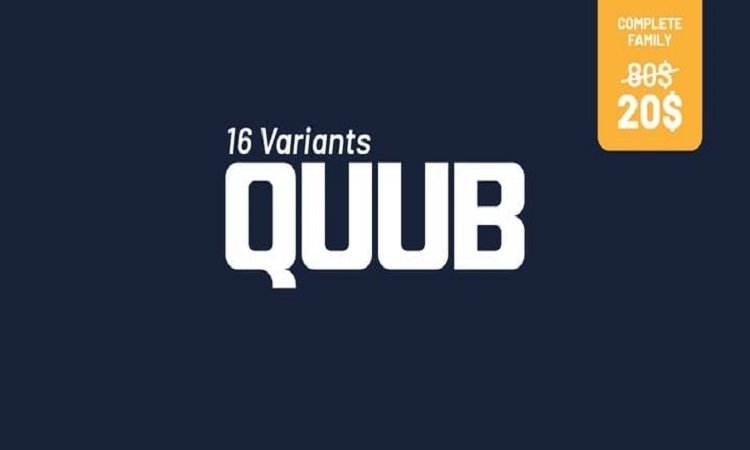
Quub Sans Serif Font Family
Quub Font is minimal, clean sans display typeface with 16 fonts, ligatures and multilingual support. It’s a very versatile font that works great in large and small sizes.
Quub Font is perfect for branding projects, home-ware designs, product packaging, magazine headers – or simply as a stylish text overlay to any background image.